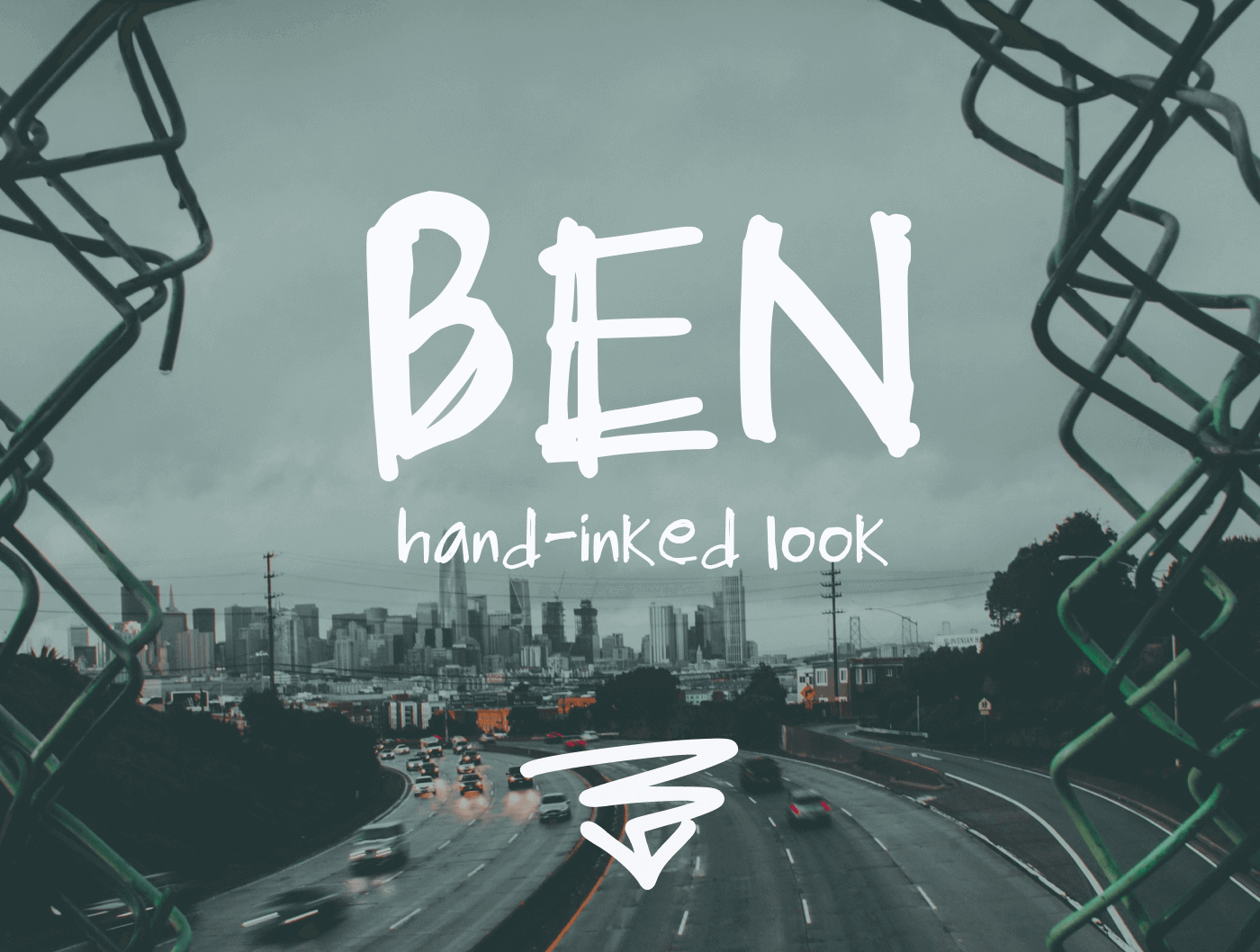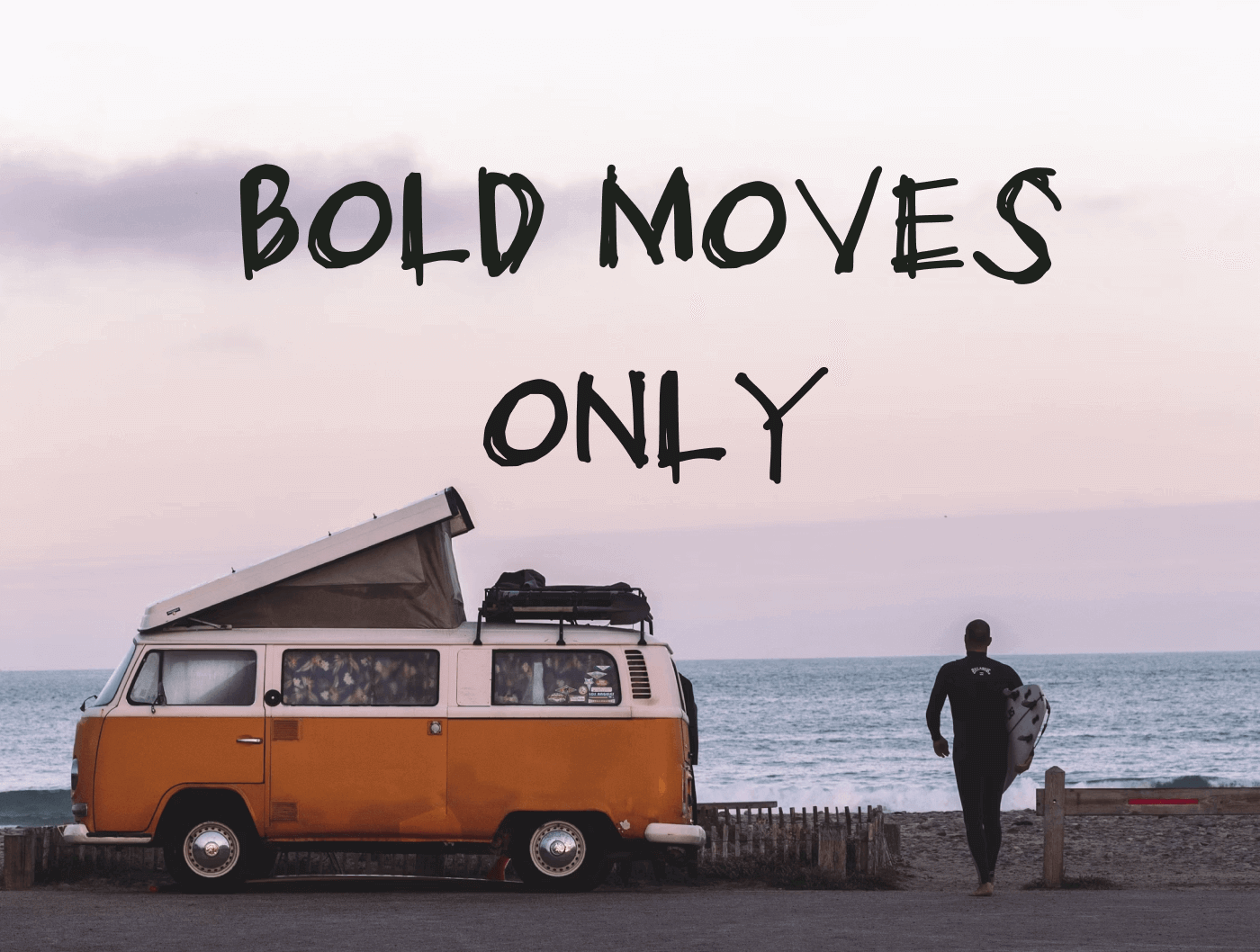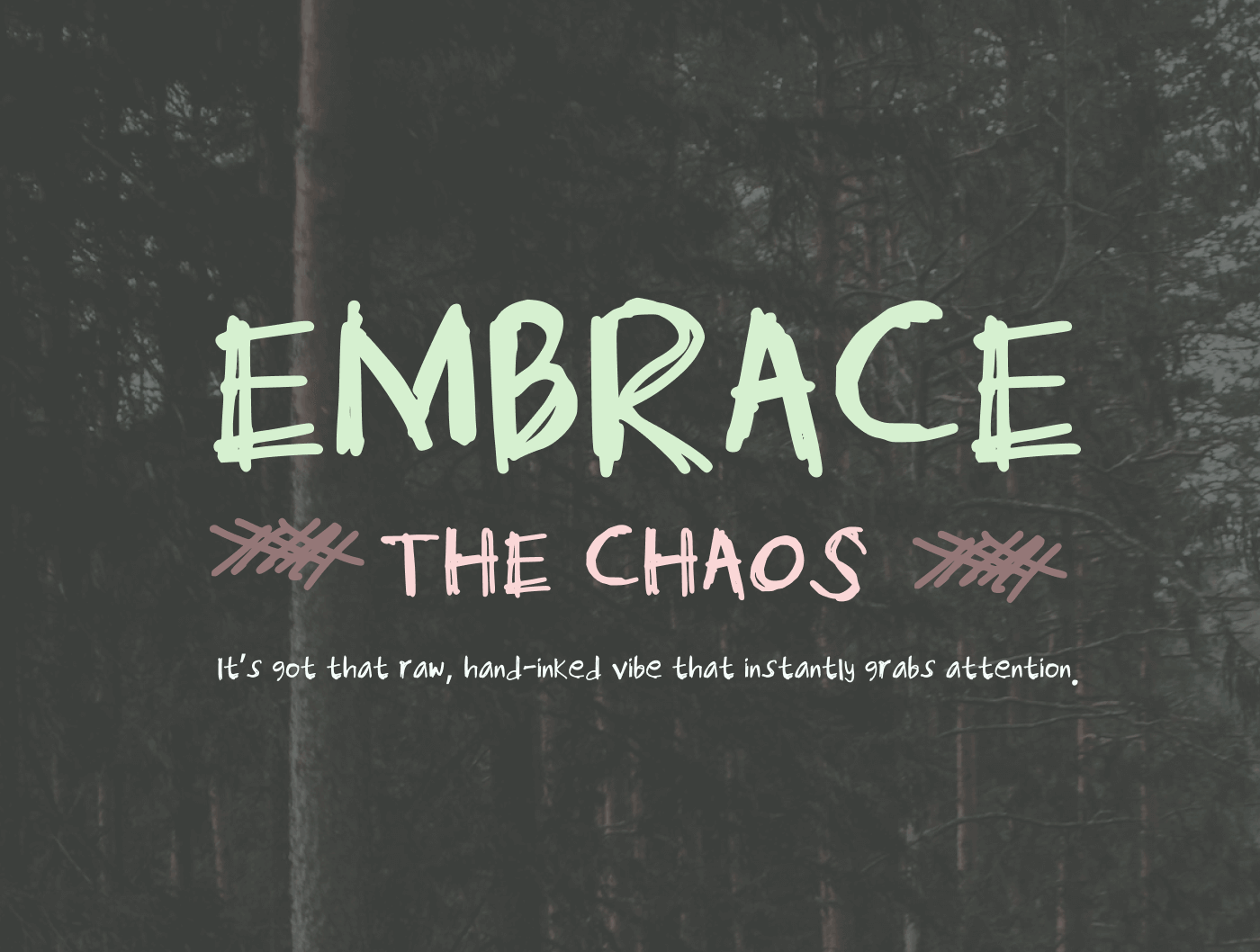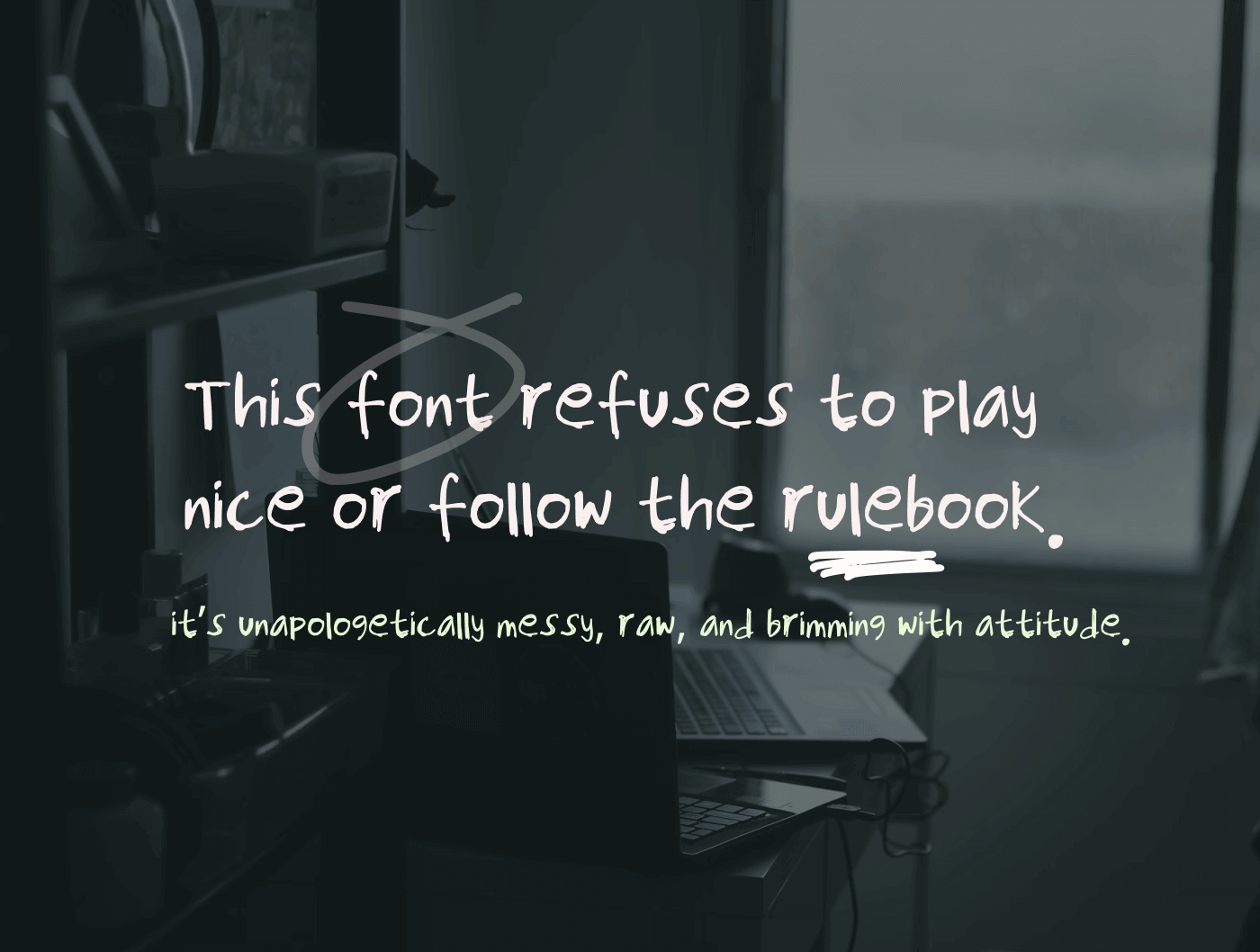
Ben handwritten font
What kind of font is Ben?
Ben is a bold hand-inked font with energetic brush texture for logos, social graphics, posters, merchandise, and designs that need a raw handmade feel.
Does Ben include uppercase, lowercase, numbers, and punctuation?
Yes. Ben includes uppercase letters, lowercase letters, numbers, and common punctuation for everyday design use.